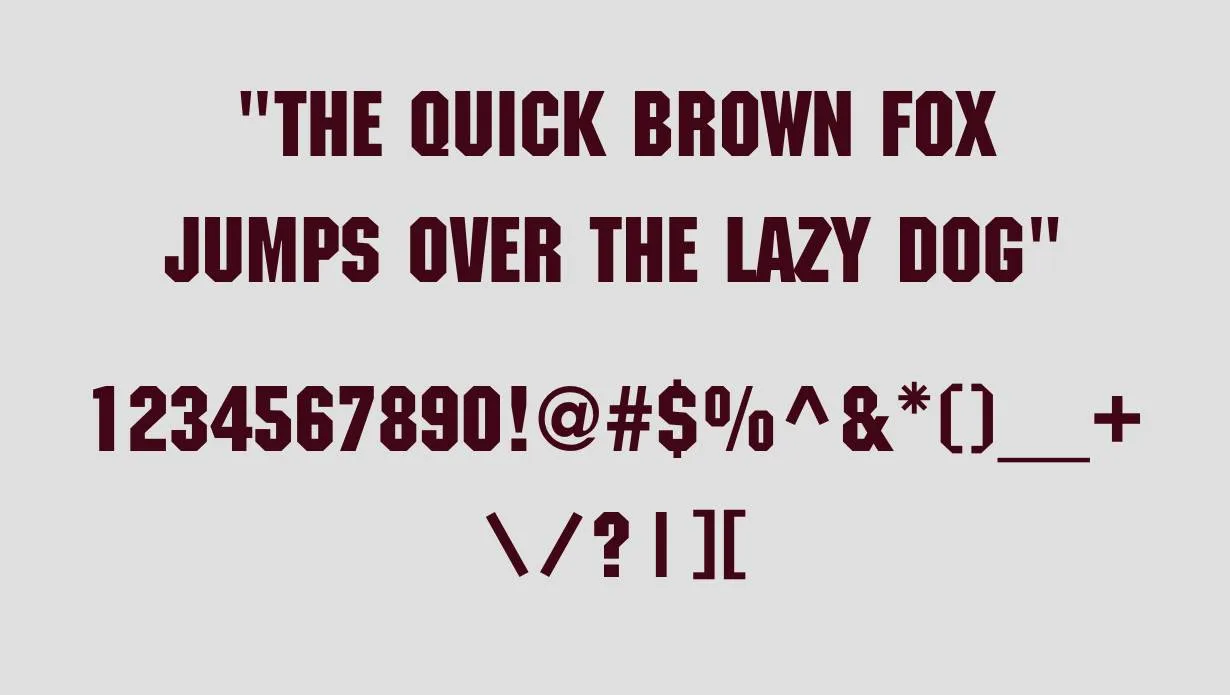
The ITC Machine Std Medium font embodies a bold and industrial vibe, often seen in designs related to machines or robust branding.
| Designer | Tom Carnase |